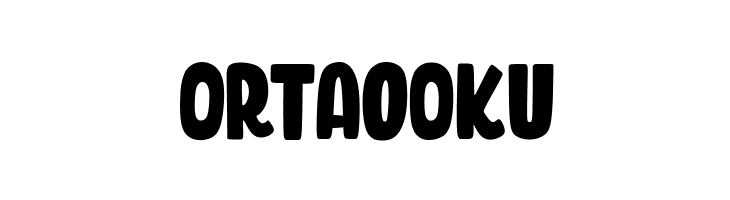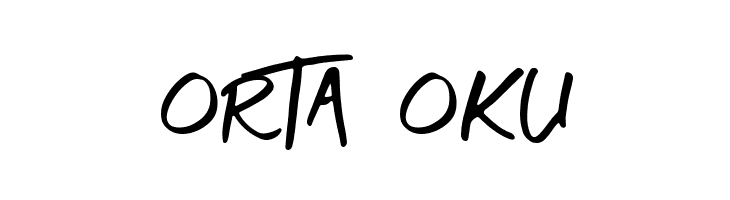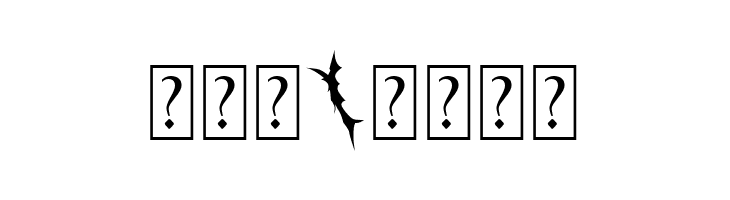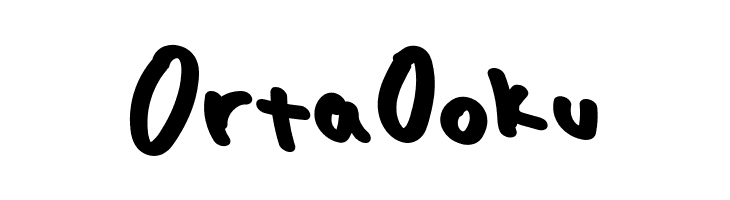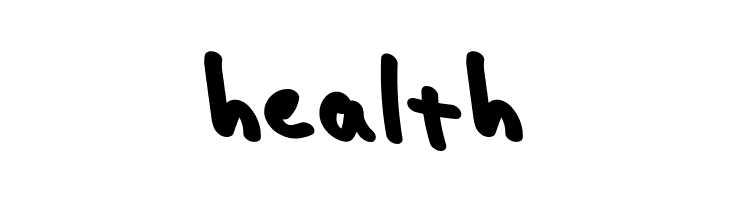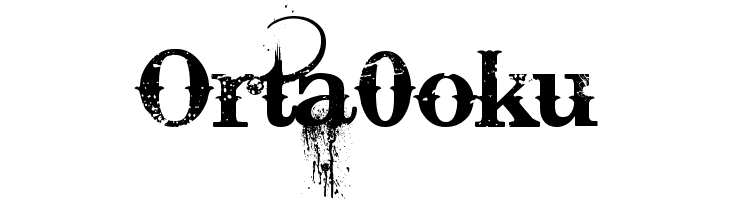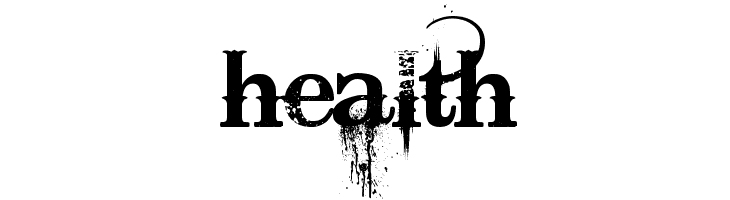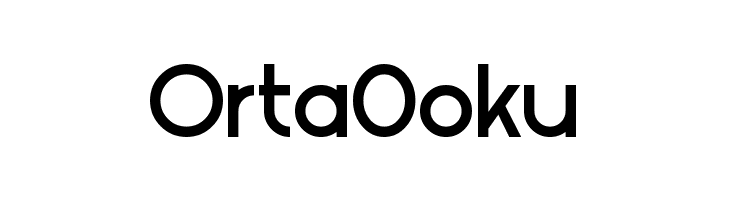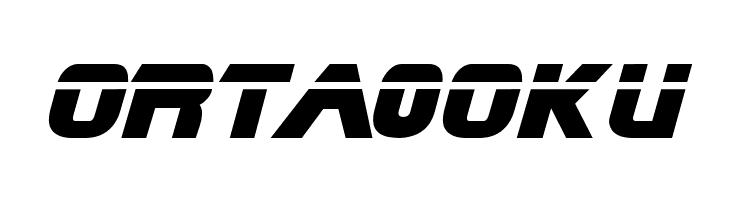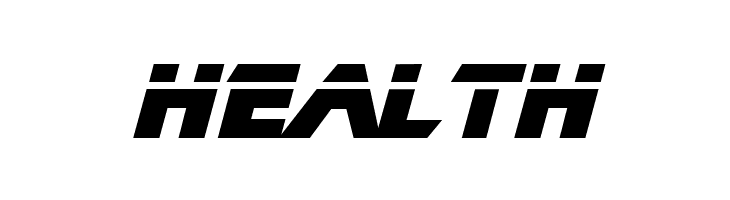
An ornamental font with thorn-like, gothic-inspired designs.
A bold, angular, and futuristic font with a dynamic, slanted style.
A bold, rounded font with a playful and friendly style.
A playful, bold handwritten font with a casual and friendly style.
A decorative, distressed font with elaborate swirls and a grungy appearance.
A dynamic brush-style font with fluid, hand-drawn strokes.
A bold, expressive script font with a dynamic, handwritten style.
A modern, geometric sans-serif font with smooth, rounded edges.
A bold, dripping font ideal for horror and spooky themes.